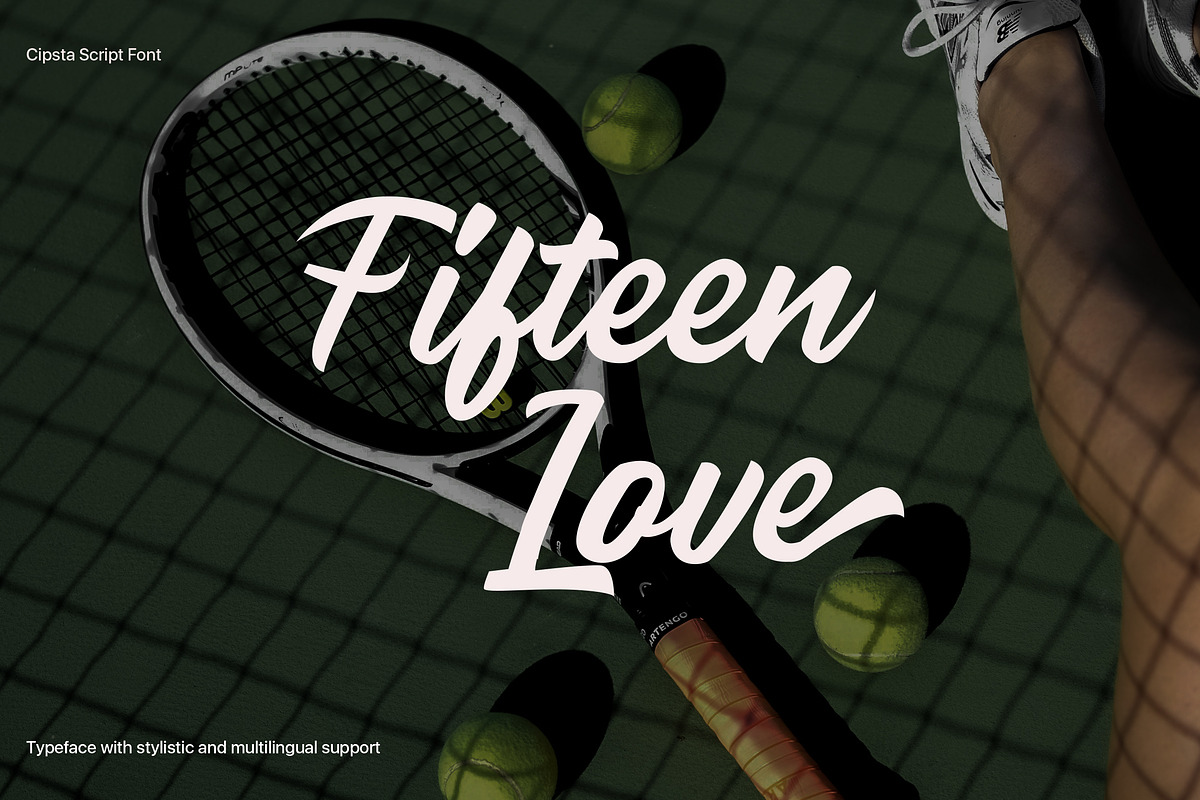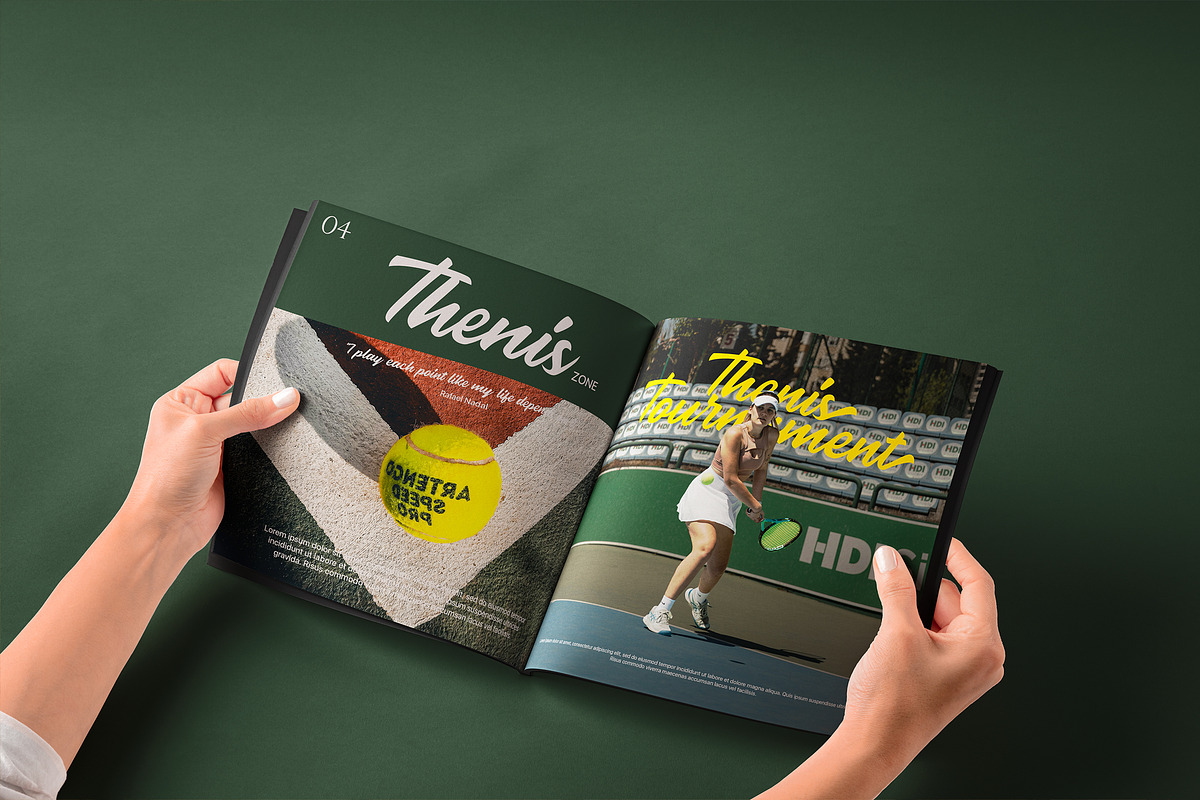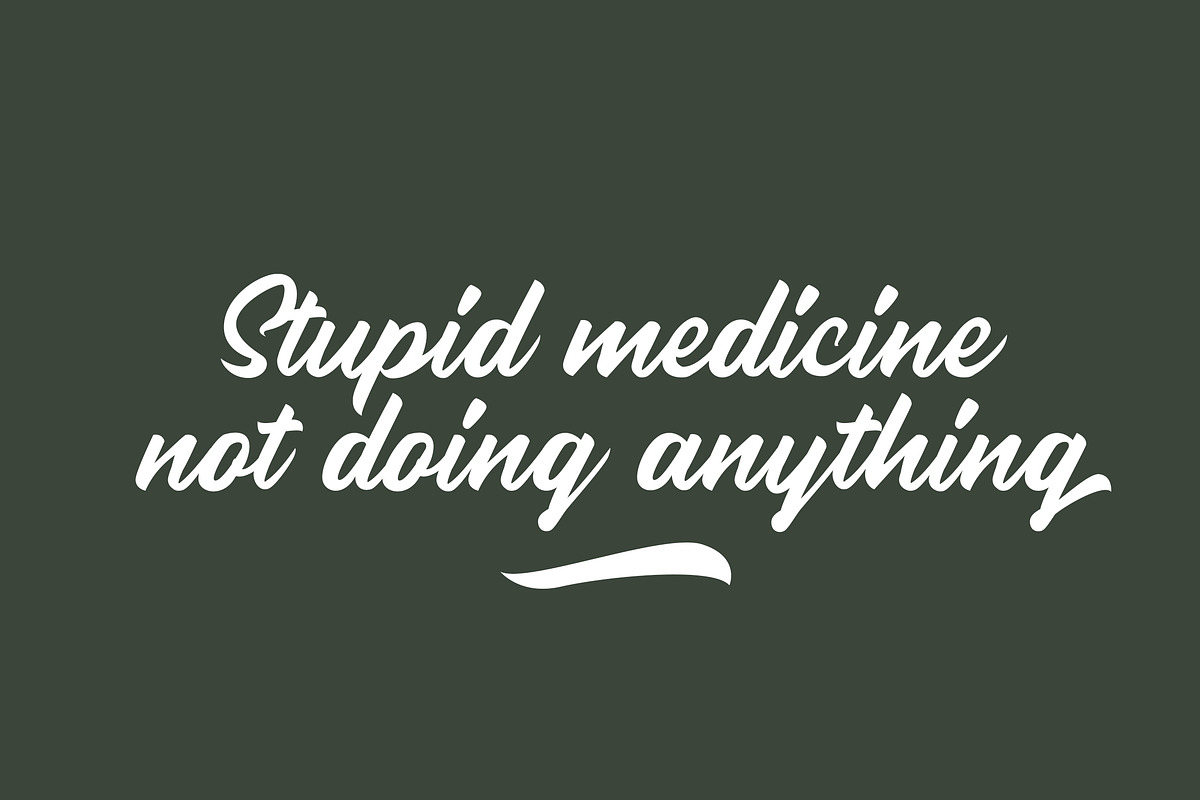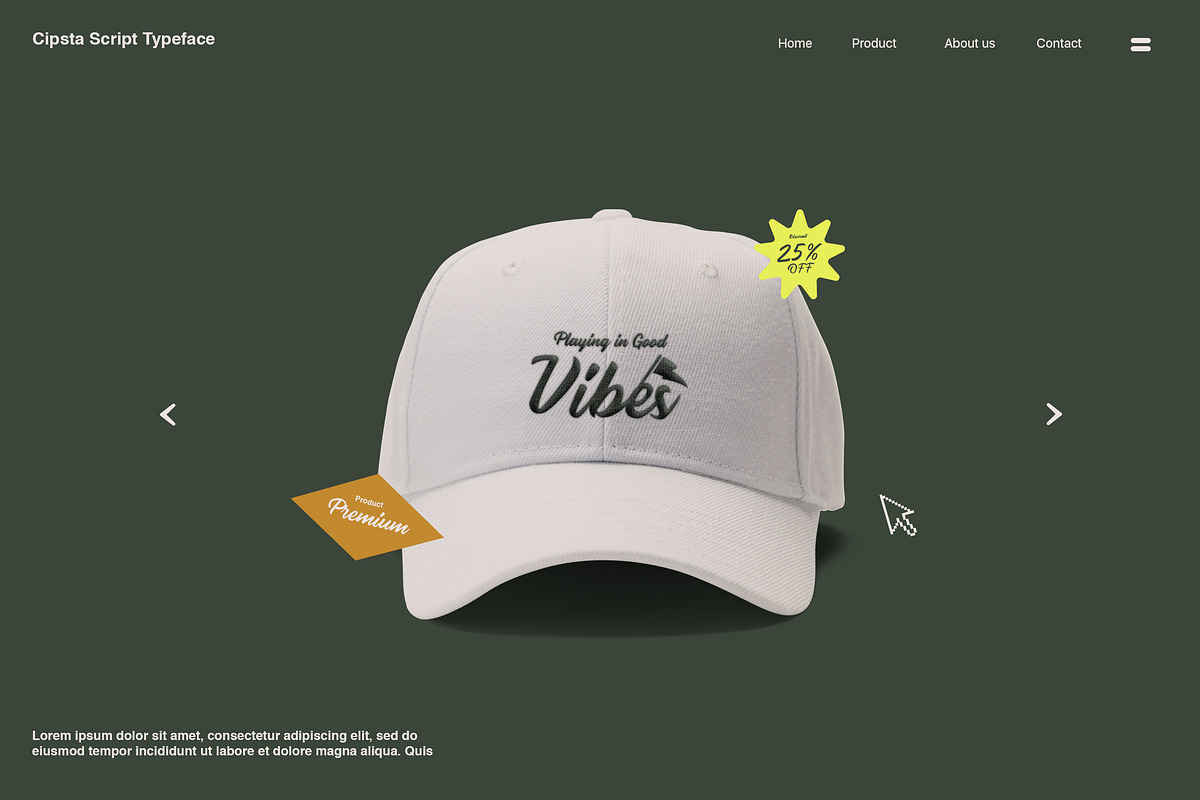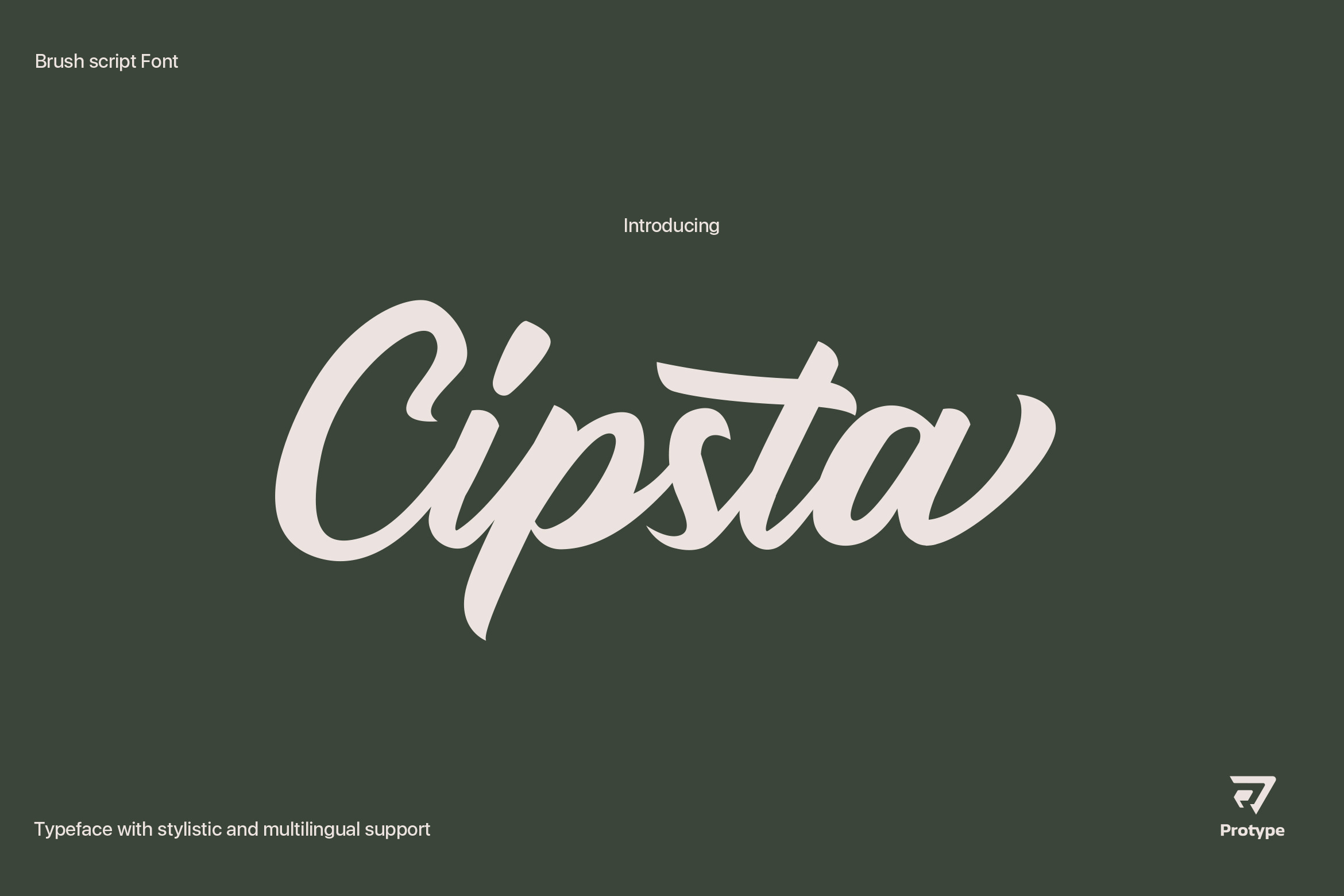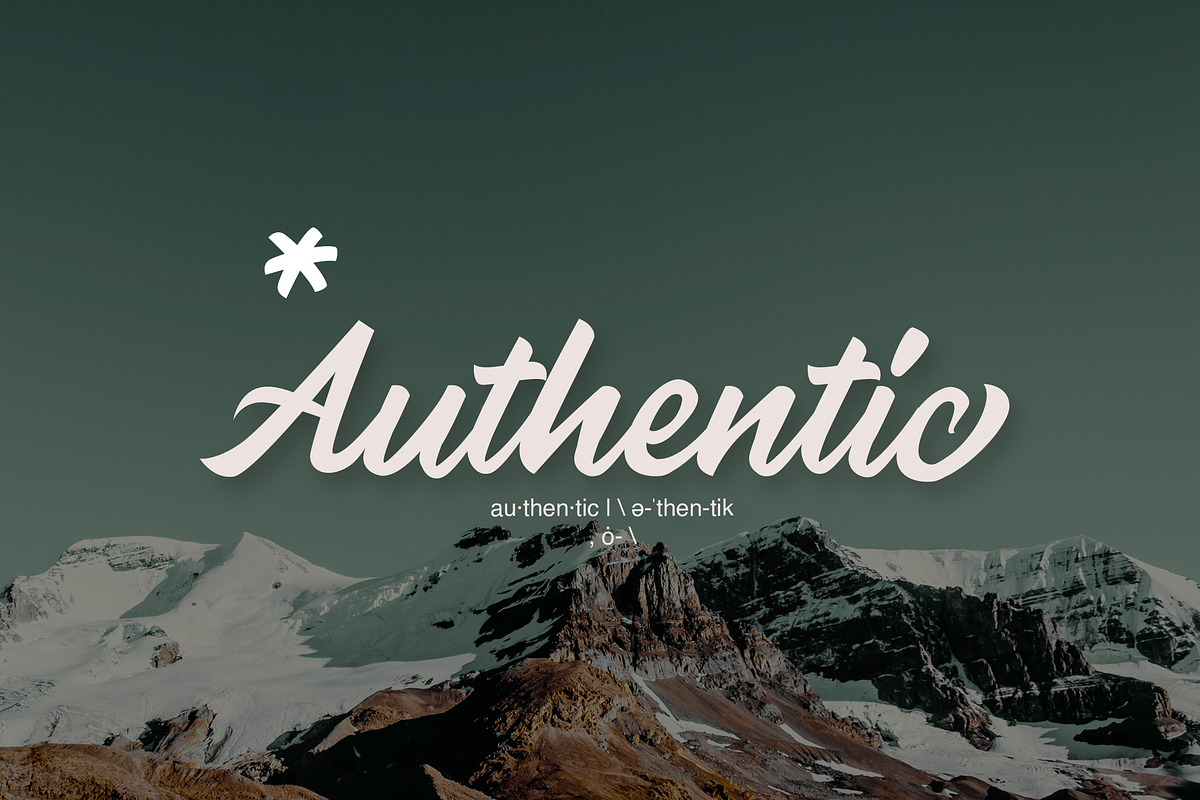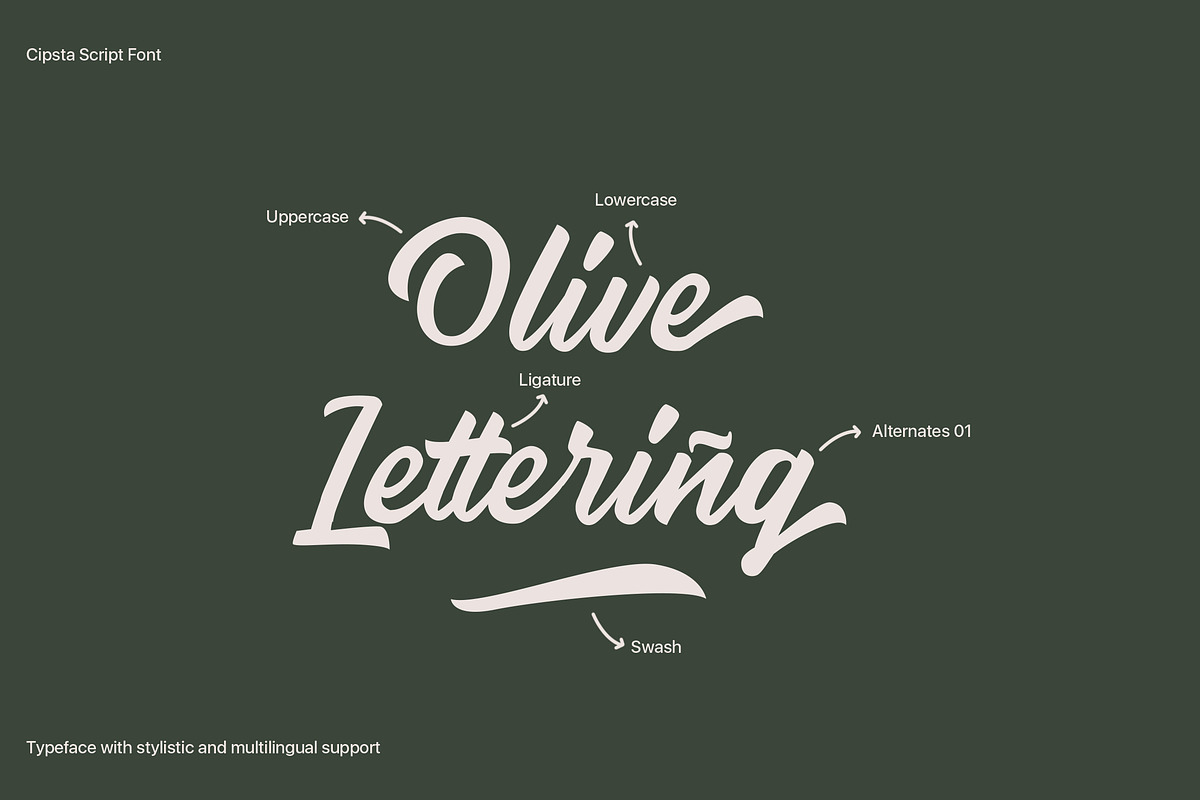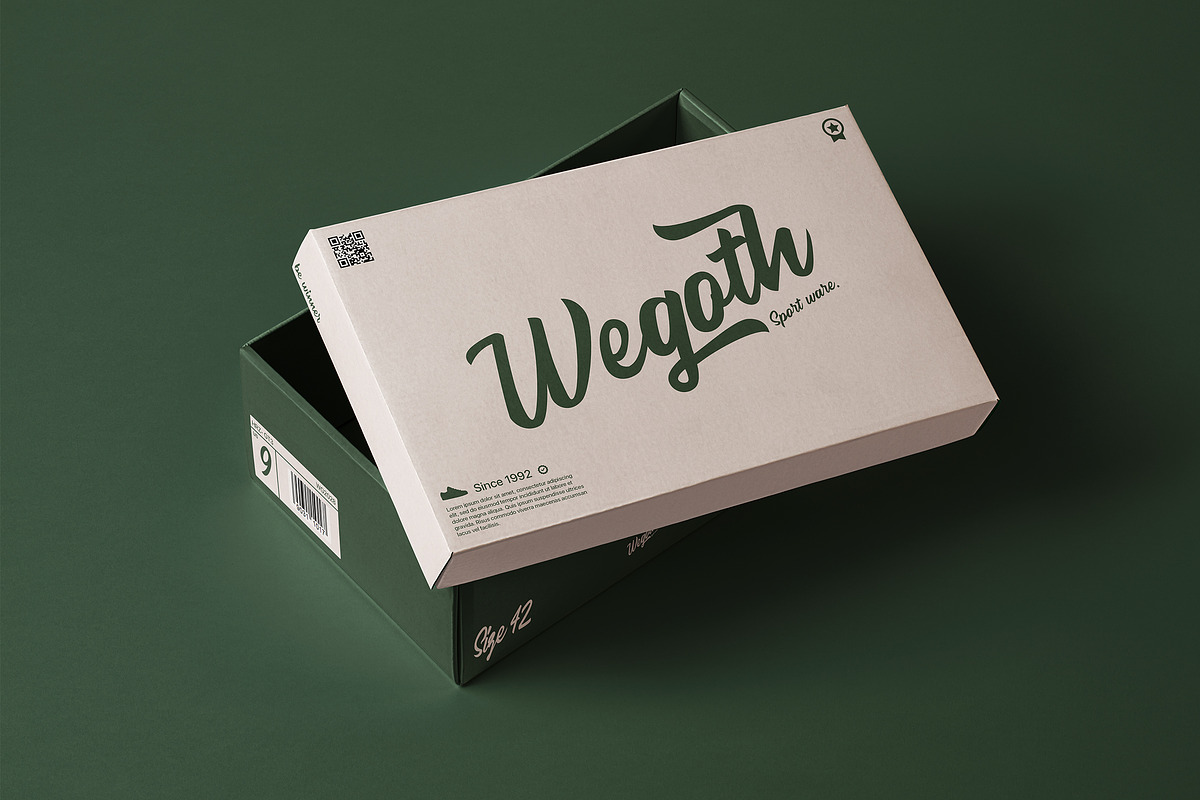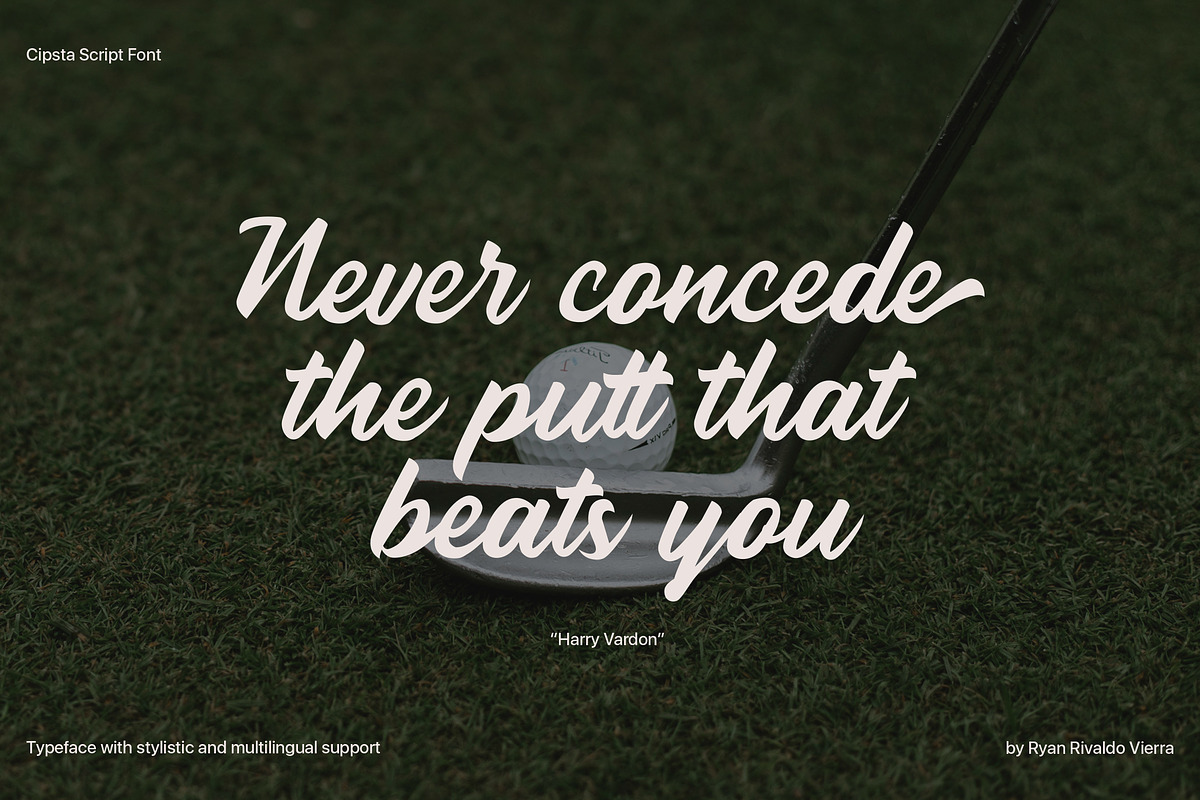
Cipsta Script Font
Cipsta is a cursive typeface inspired by brush lettering and traditional sign painting. Suitable for branding/identity, clothing/t-shirt design, signage, headlines, poster, etc. Cipsta Script font was designed carefully to equalize the dynamic flow and its legibility.